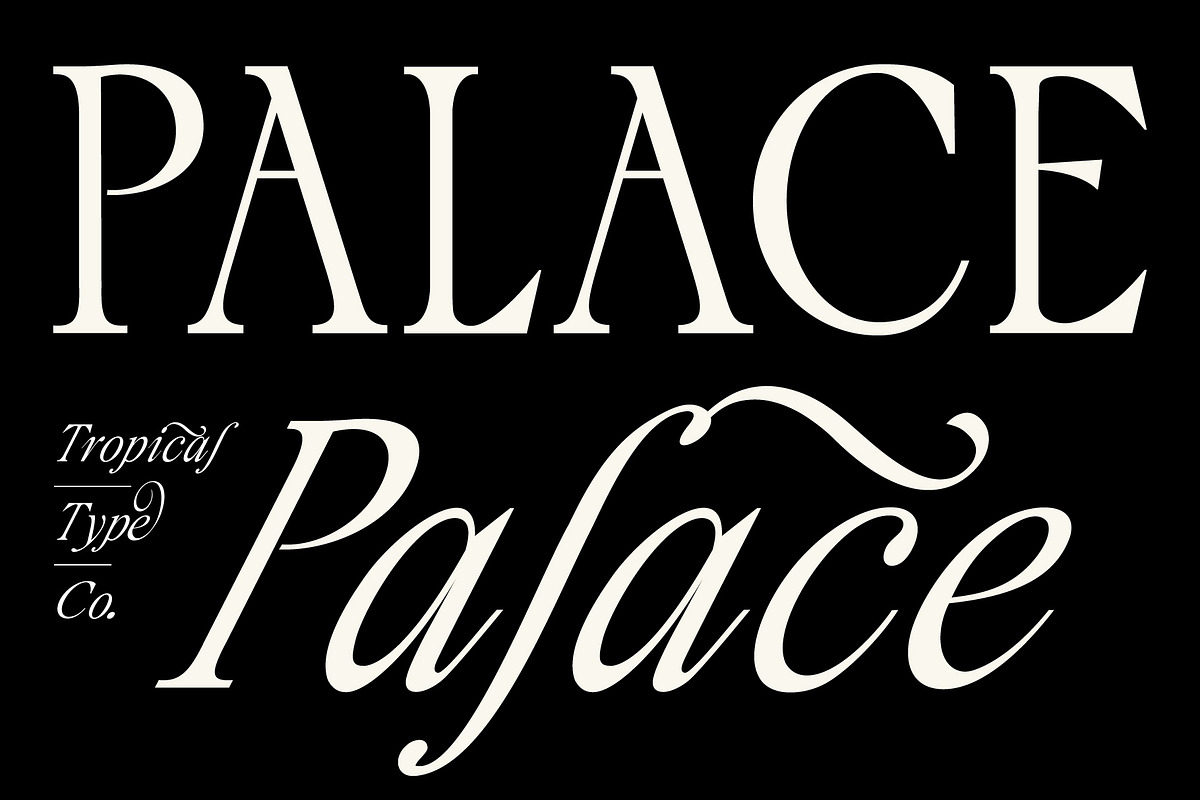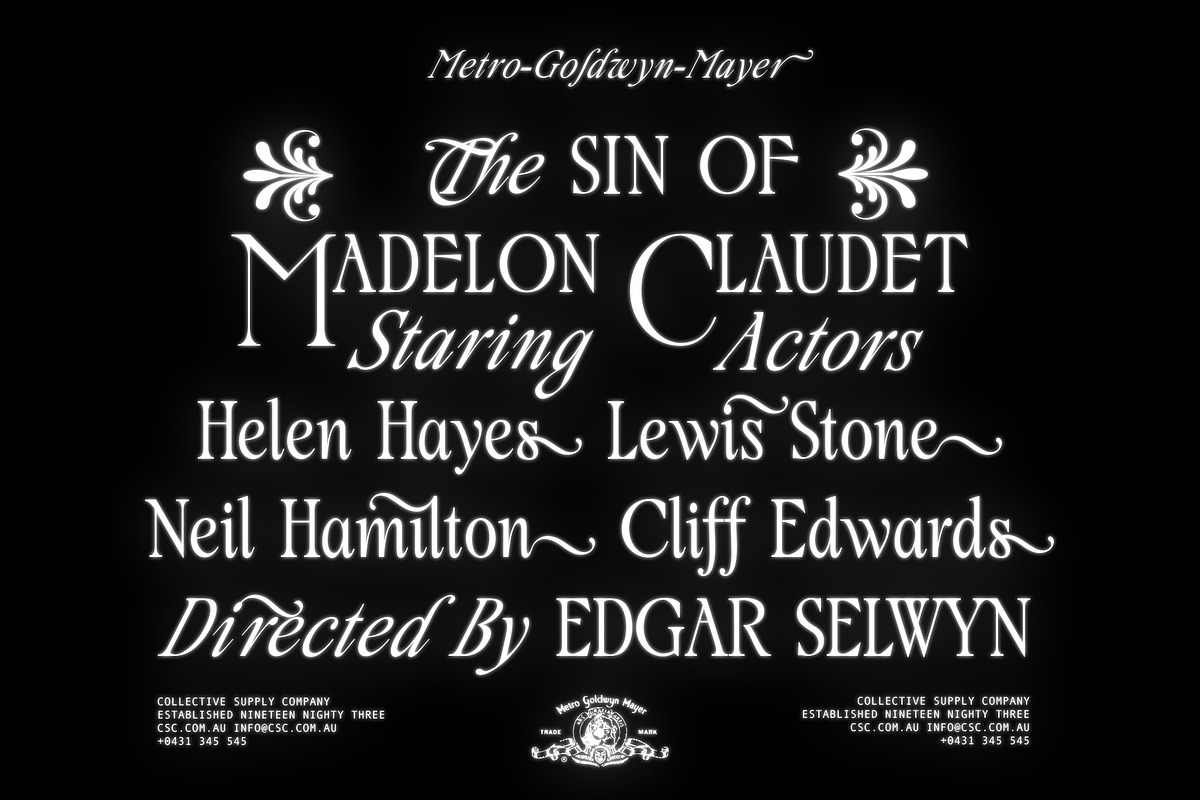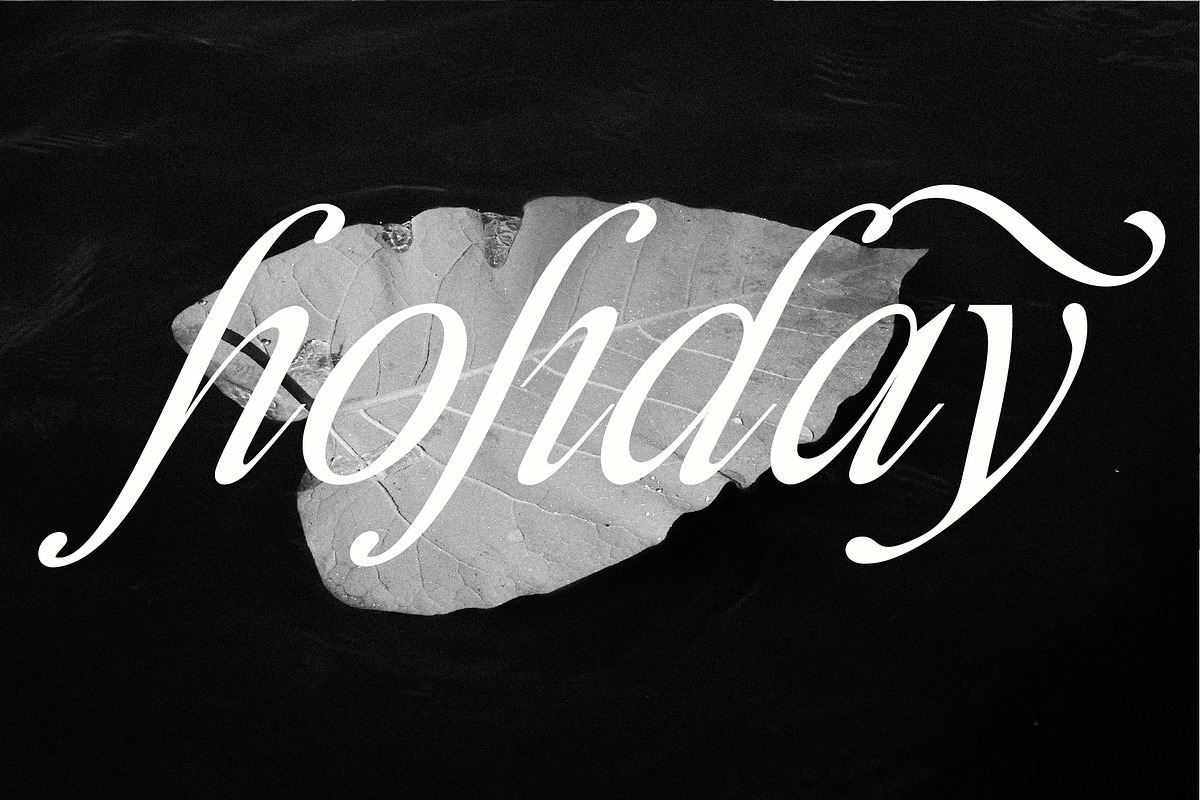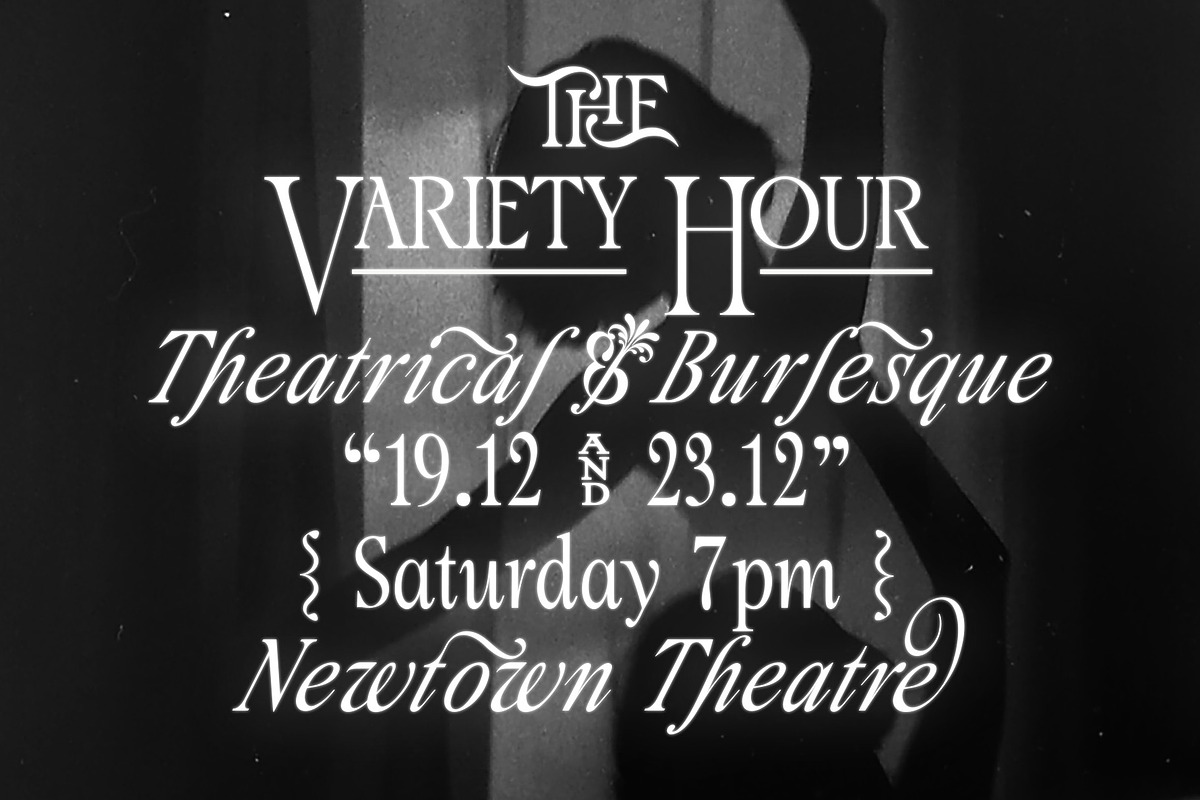
Palace Serif Typeface
Palace is a classical serif loaded with flourishes and alternates for a chic vintage feel. It's got tall caps, italics, catchwords, multiple ampersands and more. Open up your glyphs panel and explore all the characters!
- Palace is a classical serif loaded with flourishes and alternates for a chic vintage feel.